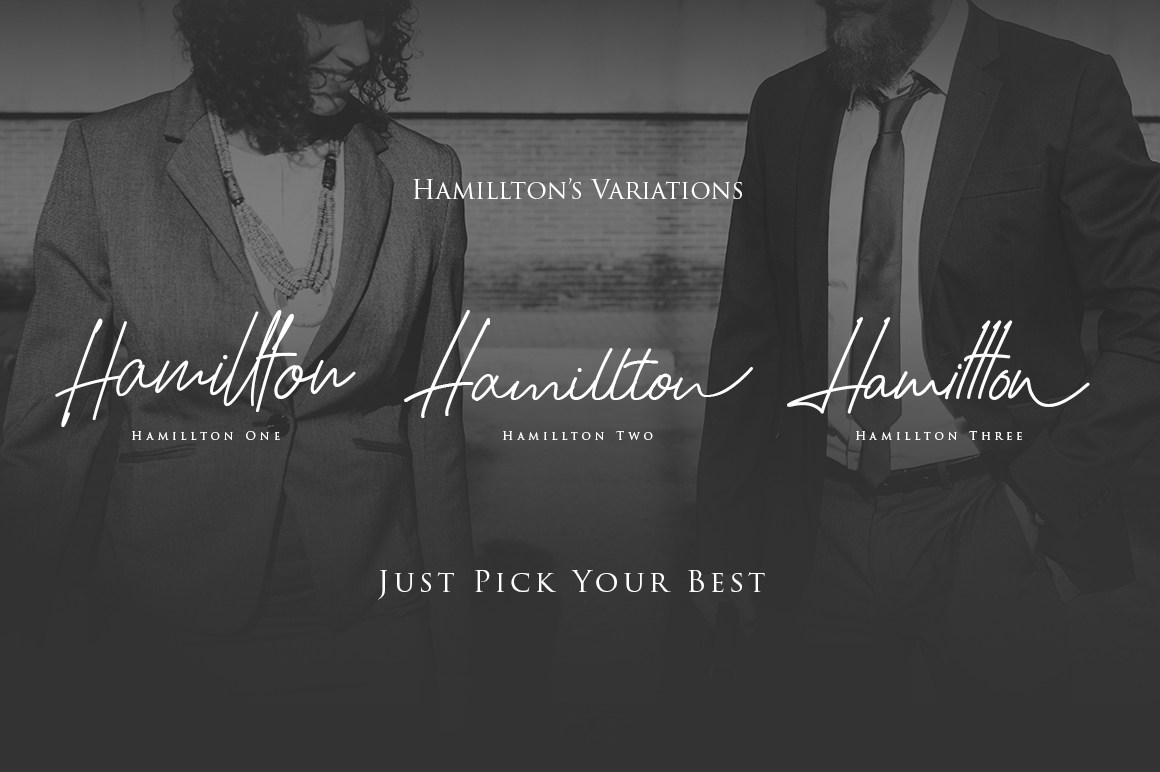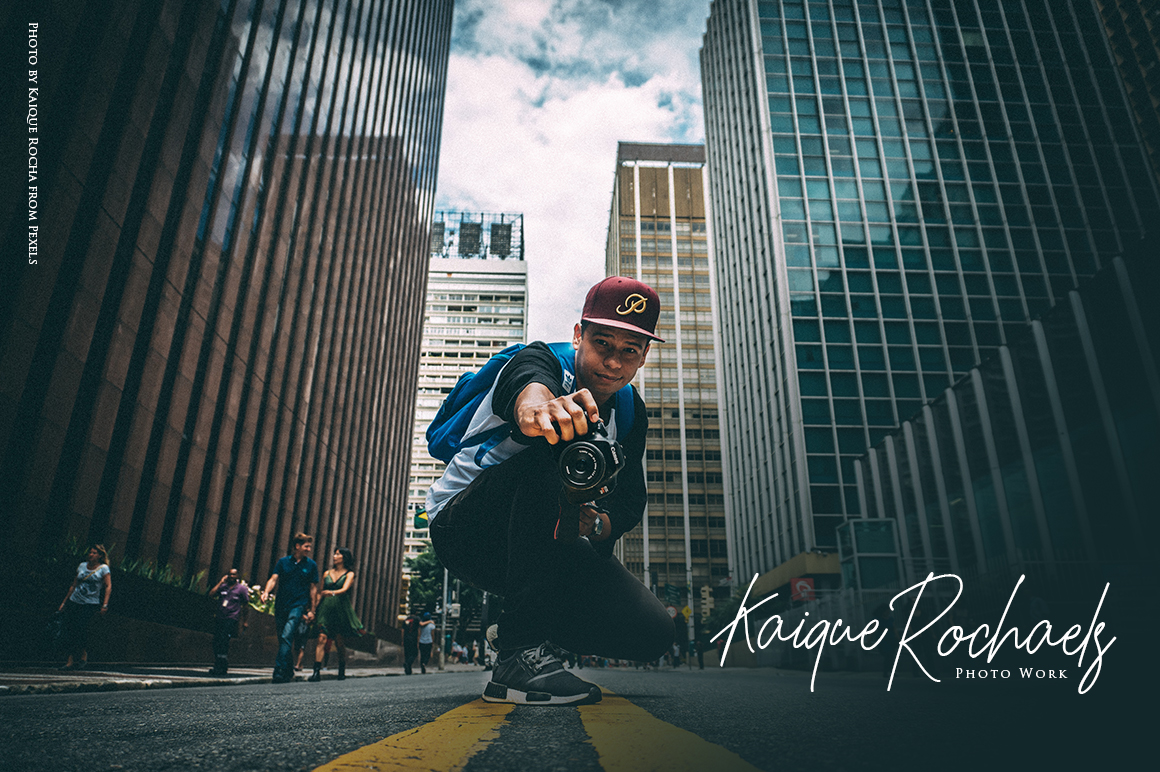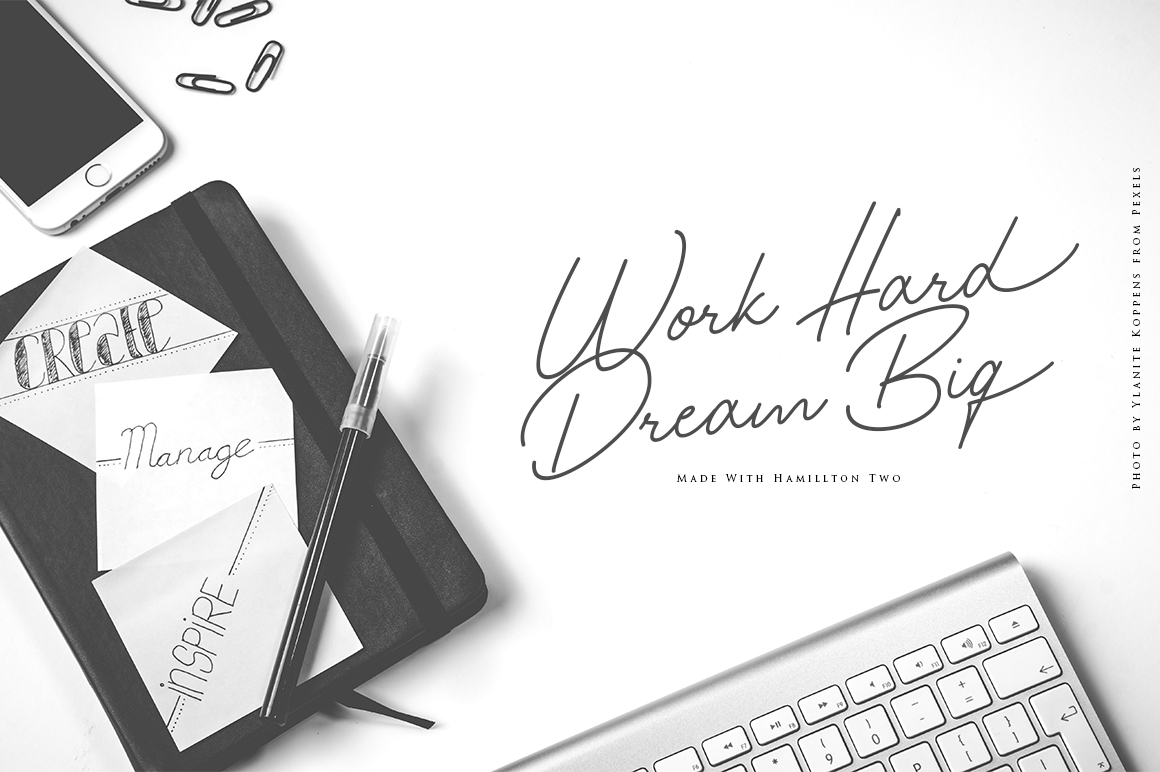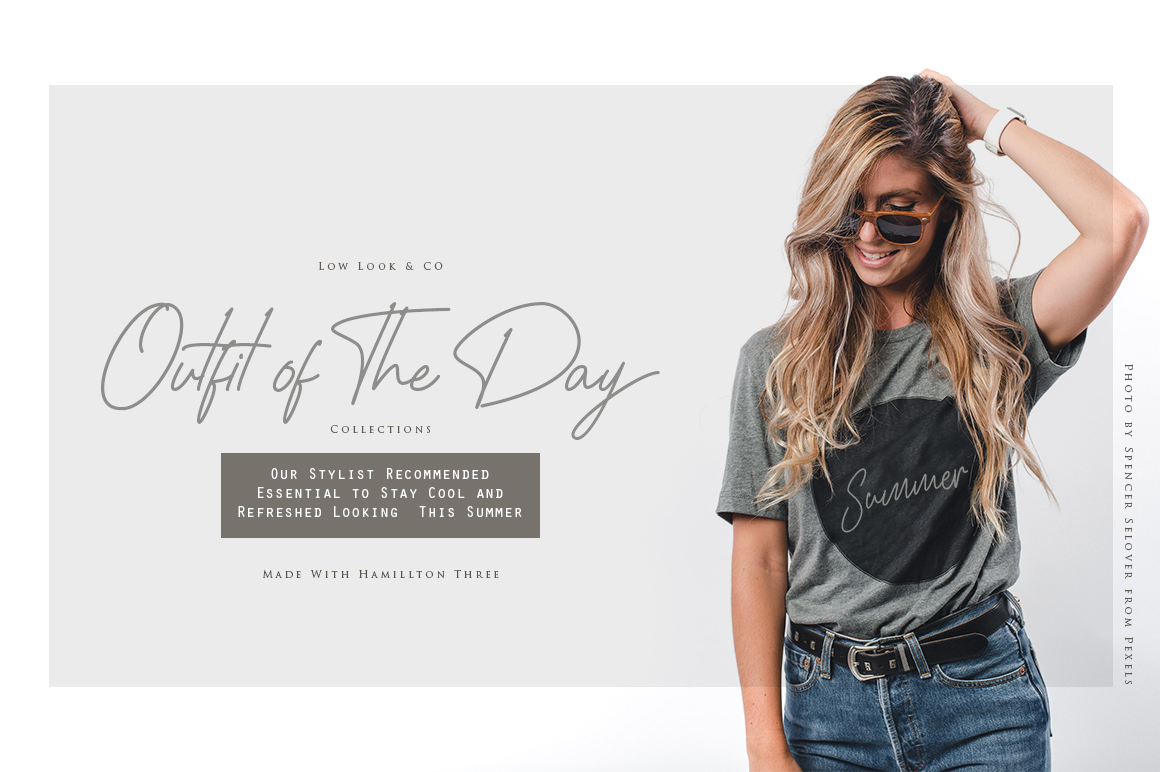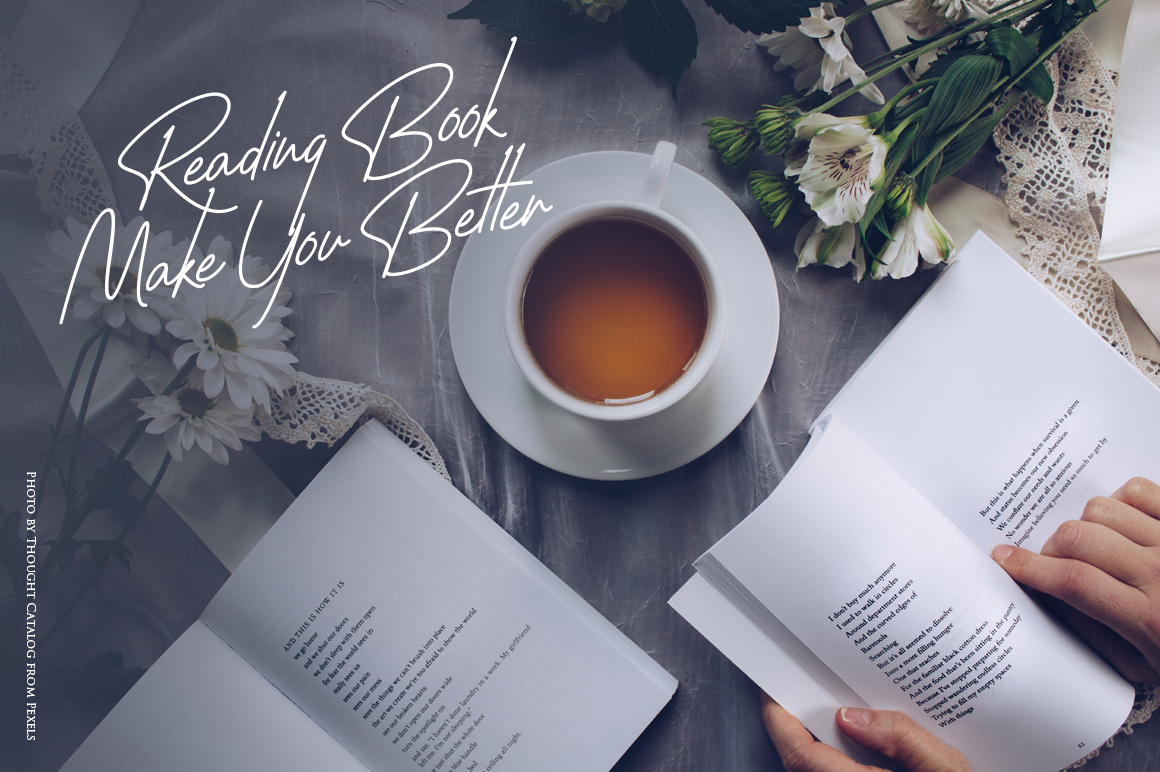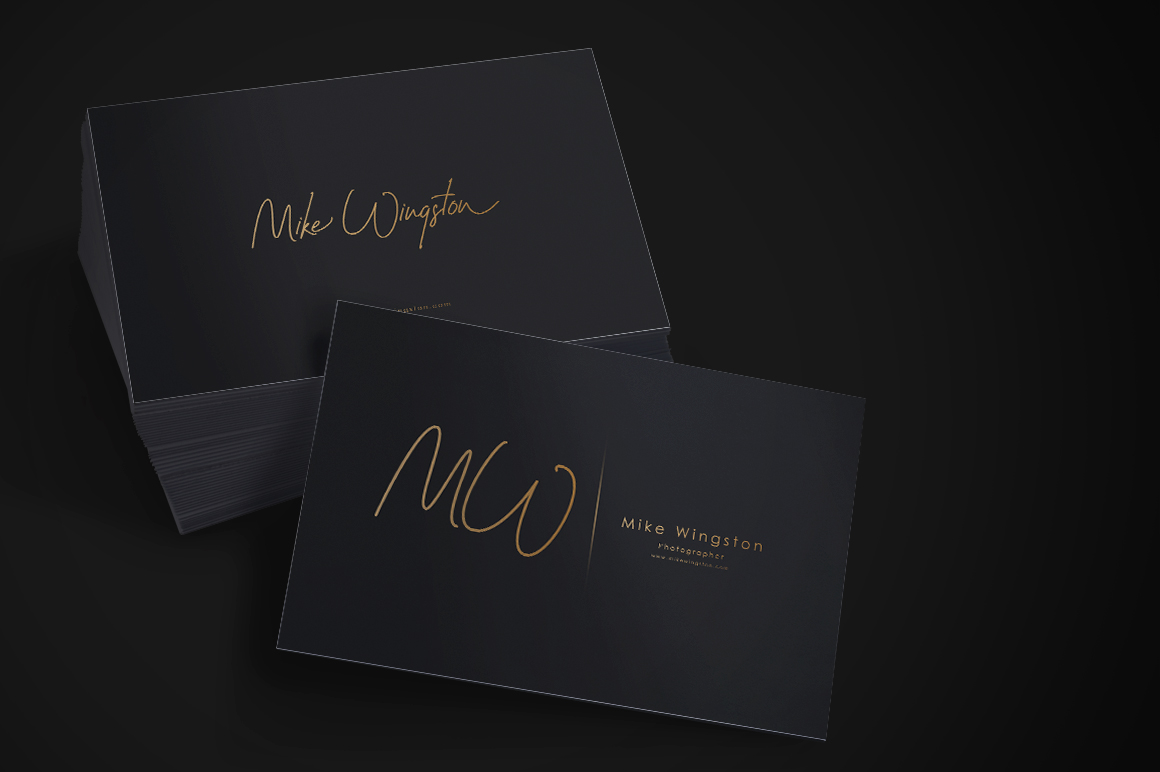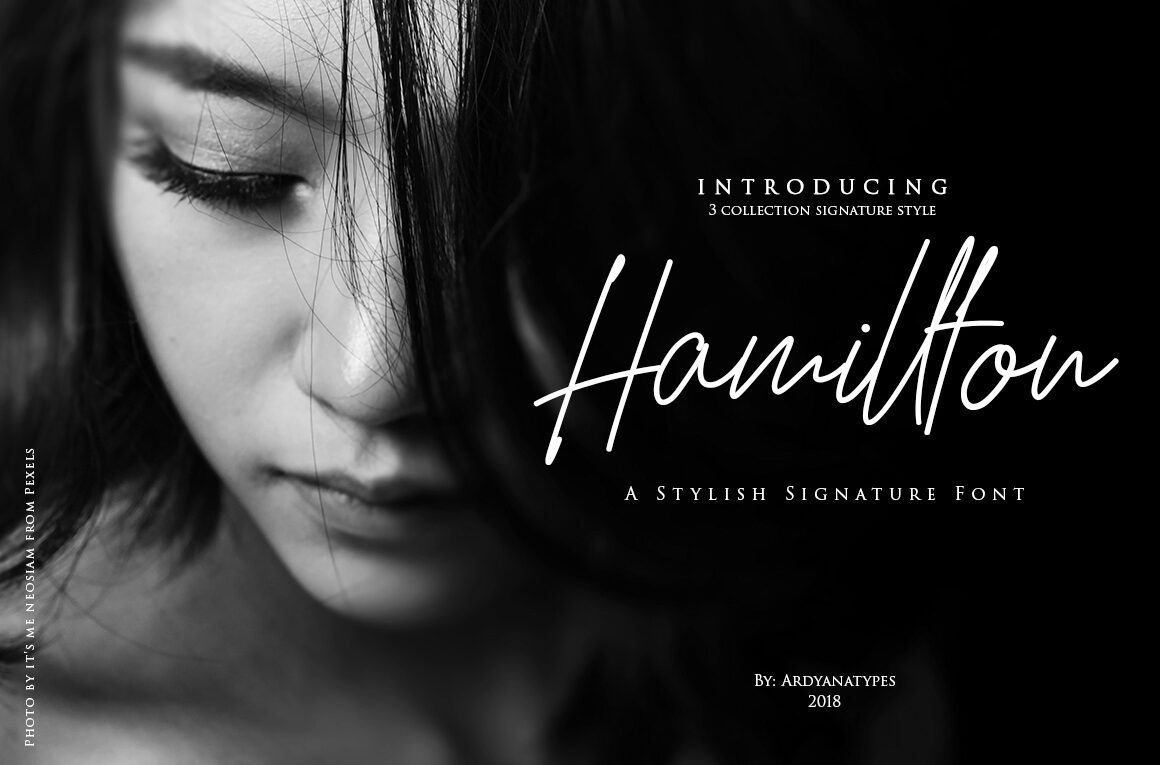
Introducing the Elegant Hamillton Font: A Simple yet Versatile Typeface
In the world of typography, a well-crafted font can elevate a design project from ordinary to extraordinary. For designers and crafters seeking a beautiful and elegant font family, look no further than Hamillton. This stunning typeface is specifically designed to bring a touch of sophistication to a wide range of projects, from displays and watermarks to logotypes and more.
The Beauty of Hamillton Font
Hamillton Font is a masterpiece of simplicity, boasting a signature style that exudes elegance and refinement. With its clean lines, subtle curves, and balanced proportions, this font family is perfect for designers who appreciate the beauty of understated typography. Whether you’re working on a branding project, creating a logo, or designing a visual identity, Hamillton Font is an excellent choice.
Three Variants for Endless Possibilities
One of the standout features of Hamillton Font is its versatility. This font family comes in three variants, each with its own unique character and charm. Whether you need a font for headings, body text, or display purposes, Hamillton has got you covered. The three variants can be used separately or in combination, offering endless possibilities for creative experimentation.
So, what can you use Hamillton Font for? The answer is almost anything! This font family is incredibly versatile and can be used in a variety of projects, including:
- Displays: Use Hamillton Font to create stunning headlines, titles, and captions that grab attention and make a lasting impression.
- Watermarks: Add a touch of elegance to your images and designs with Hamillton Font, perfect for creating subtle yet sophisticated watermarks.
- Logotype: Create a professional and memorable logo for your brand with Hamillton Font, ideal for use on business cards, letterheads, and website headers.
- Packaging: Use Hamillton Font to add a touch of sophistication to your packaging designs, making your products stand out on store shelves.
Why Choose Hamillton Font?
With so many fonts available, why choose Hamillton Font? Here are just a few reasons why designers and crafters love this beautiful typeface:
- Elegance: Hamillton Font boasts an elegant and refined design that’s perfect for creating sophisticated designs.
- Versatility: With three variants to choose from, Hamillton Font can be used in a wide range of projects and applications.
- Readability: This font family is designed to be highly readable, even at small sizes, making it perfect for body text and captions.
- Uniqueness: Hamillton Font has a unique character that sets it apart from other fonts, ensuring your designs stand out from the crowd.
Tips for Using Hamillton Font
To get the most out of Hamillton Font, here are a few tips to keep in mind:
- Experiment with different variants: Try combining different variants of Hamillton Font to create visual interest and hierarchy in your designs.
- Play with font sizes: Use Hamillton Font in a range of sizes to create contrast and emphasis in your designs.
- Pair with other fonts: Hamillton Font pairs beautifully with other fonts, so don’t be afraid to experiment with different combinations.
In conclusion, Hamillton Font is a stunning typeface that’s perfect for designers and crafters seeking a beautiful and elegant font family. With its simple signature style, three variants, and versatility, this font family is ideal for a wide range of projects, from displays and watermarks to logotypes and more. Whether you’re a seasoned designer or just starting out, Hamillton Font is definitely worth checking out.